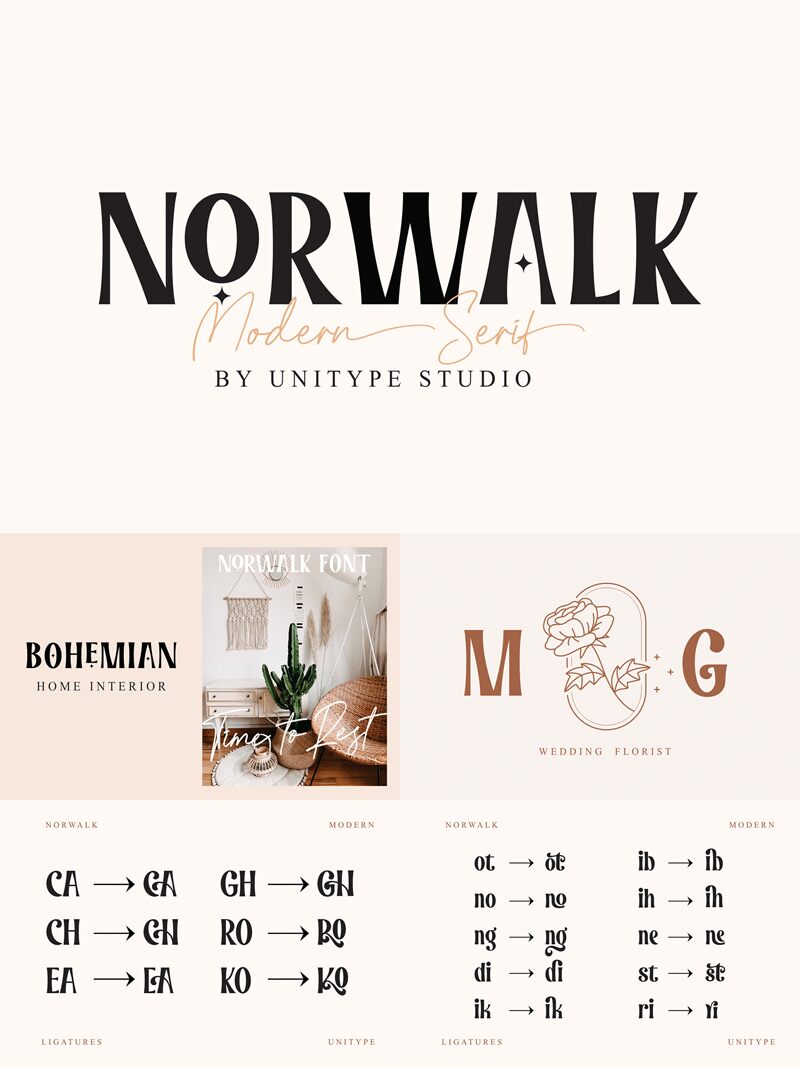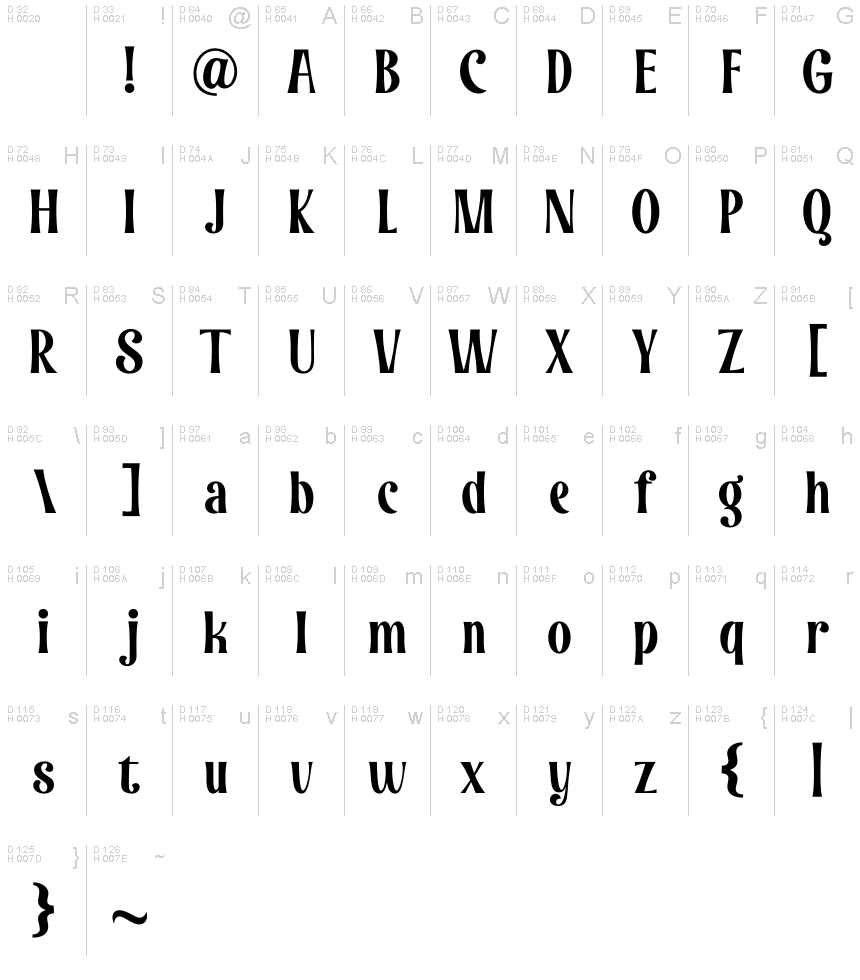
NORWALK
Norwalk font is a rewarding display typeface by Unitype, thus an invitation for tasteful designers to create the most elegant typography out there. Bold and high-contrast, this serif typeface combines a formal mood with a vintage flair alongside elongated serifs. Enjoy using this elegant font in advertisements for your fashion show, branding as part of unique wordmarks, product or packaging design. Norwalk is also great for flyers, posters, magazine covers and pages – all with an added retro stylish touch.
Norwalk font is useful for packaging design projects related to perfume boxes or skincare containers; restaurant menus; branding and creating logos; typography posters; newspaper or magazine titles.